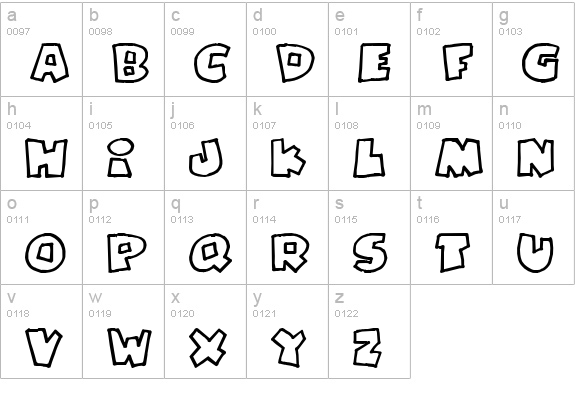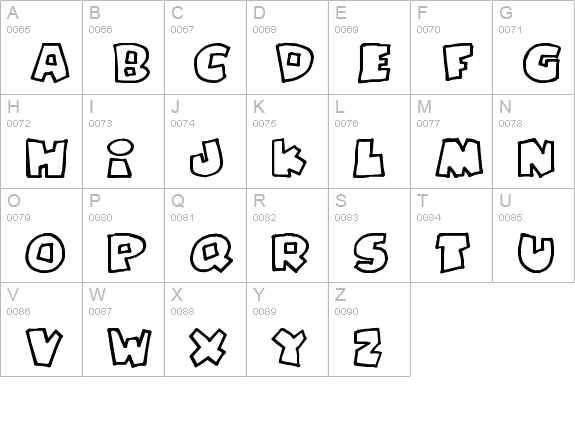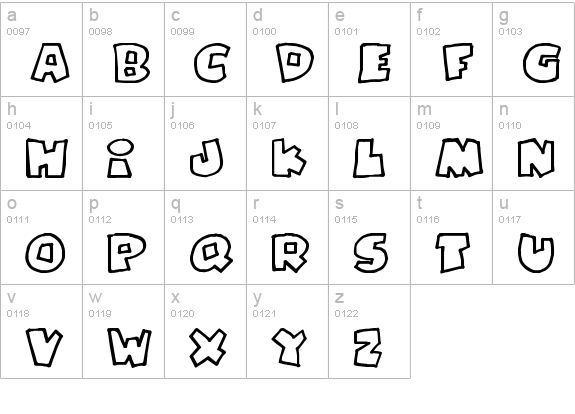
PizzaDudeFatOutline Font Details
PizzaDudeFatOutline is a stylish and eye-catching font that will add a touch of fun and playfulness to any design project. This bold and chunky typeface features a unique outline style that gives it a distinctive and memorable look. Whether you're creating a poster, logo, or any other design element, PizzaDudeFatOutline is sure to make a statement. One of the best things about PizzaDudeFatOutline is that it is completely free to download. You can easily access this font at FontsMarket.com, a trusted source for high-quality fonts. With just a few clicks, you can add this fantastic font to your collection and start using it in your projects right away. The versatility of PizzaDudeFatOutline is another reason why it's a must-have font. It works well in both large and small sizes, making it suitable for a wide range of applications. Whether you need bold headlines or attention-grabbing titles, this font has got you covered. The clean and well-defined lines of PizzaDudeFatOutline make it highly readable, ensuring that your message comes across loud and clear. Its playful and slightly quirky style adds a touch of personality to any design, making it perfect for projects that require a bit of creativity and fun. So why wait? Download PizzaDudeFatOutline today and unleash your creativity. With its free availability at FontsMarket.com, you have nothing to lose and everything to gain. Let PizzaDudeFatOutline take your designs to the next level and make them stand out from the crowd.